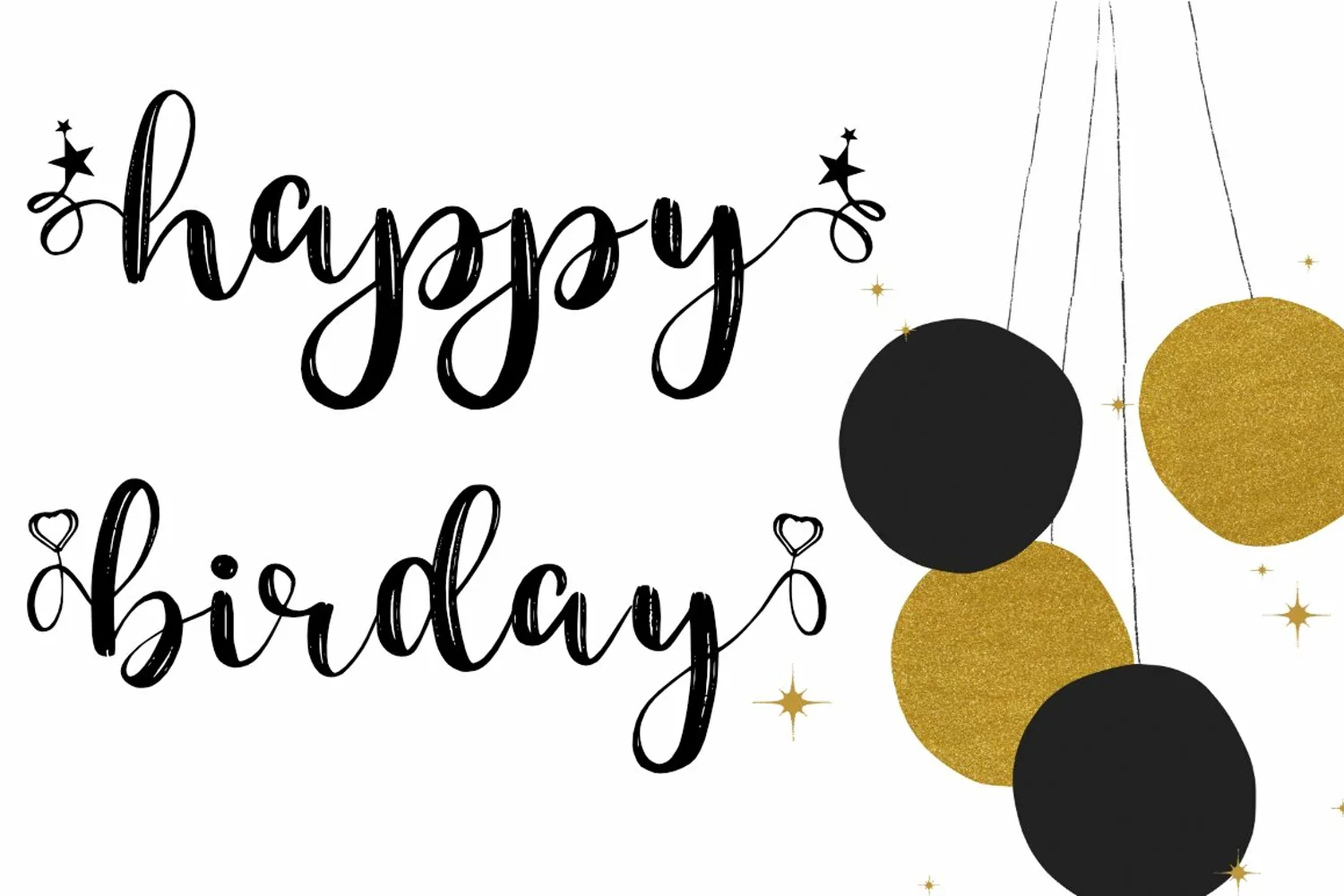
Qashim brush font . This font was designed by handwriting, and it has a modern and unique forms of calligraphy, the writing style is very natural.
The Features of this fonts is;
* Standart ligatures
* Stylistic Alternates
* Contextual Alternates
* Stylistic sets